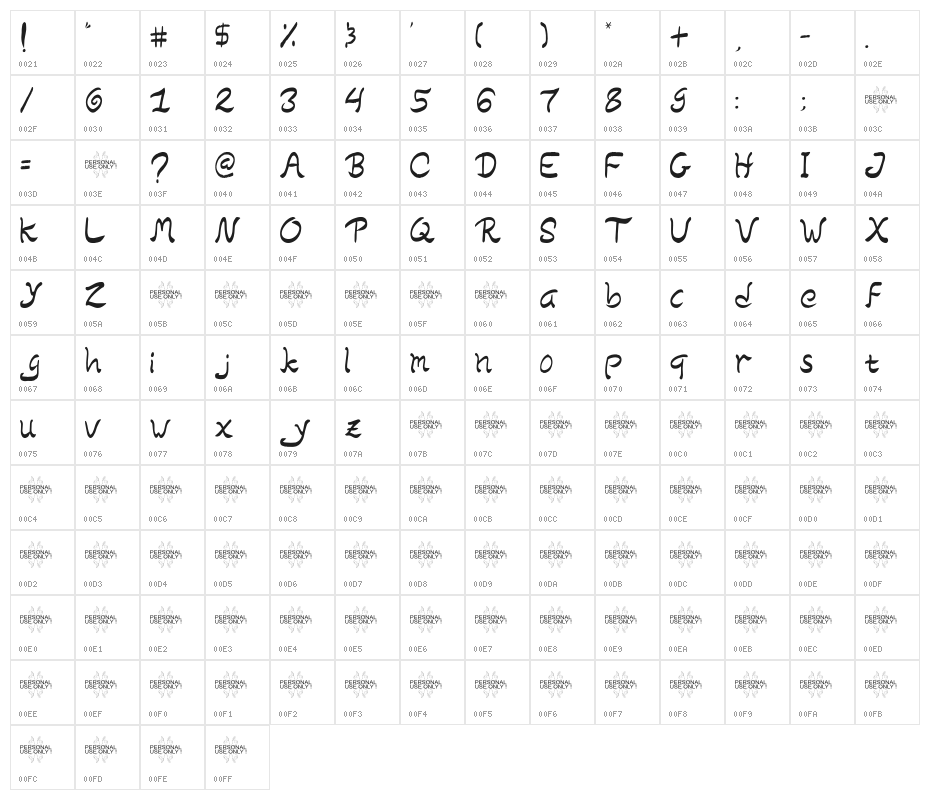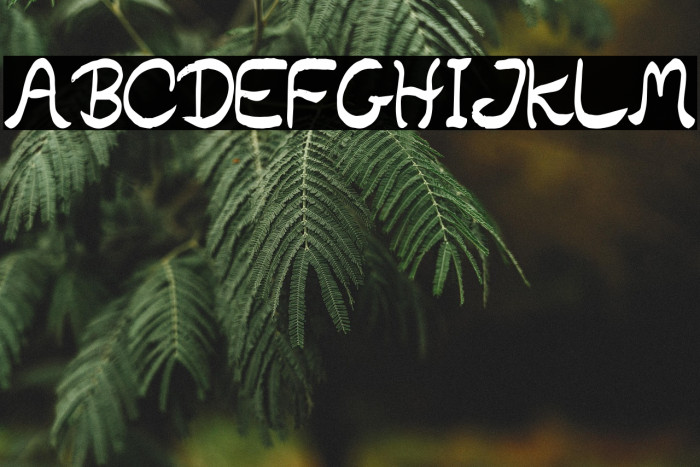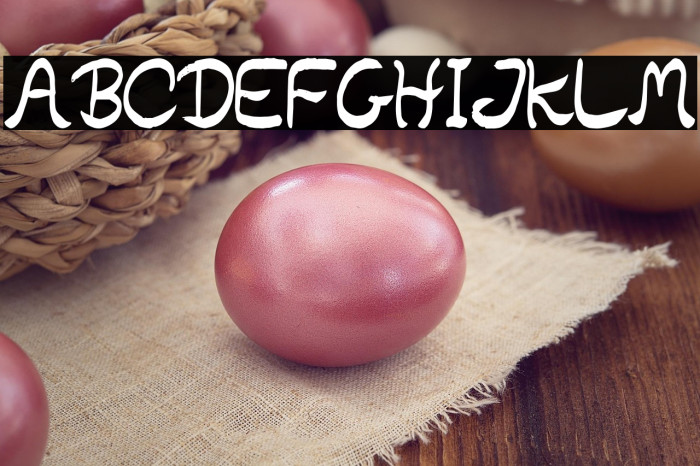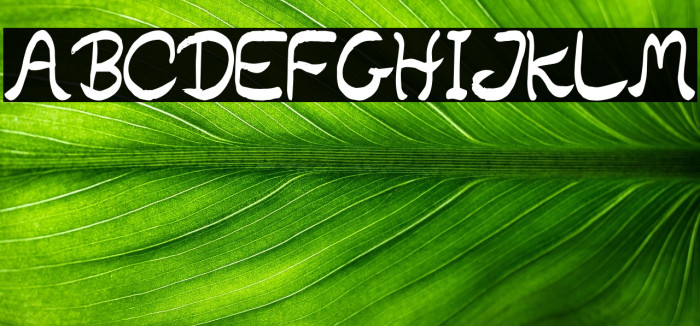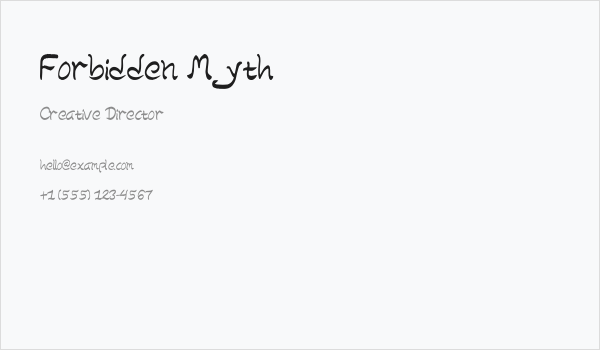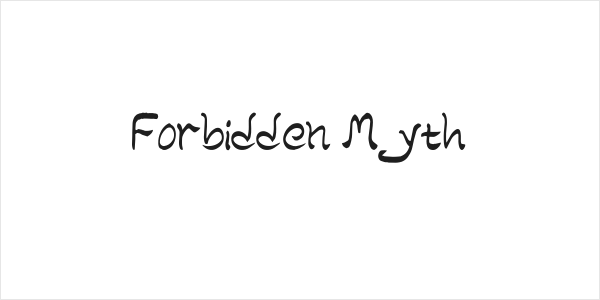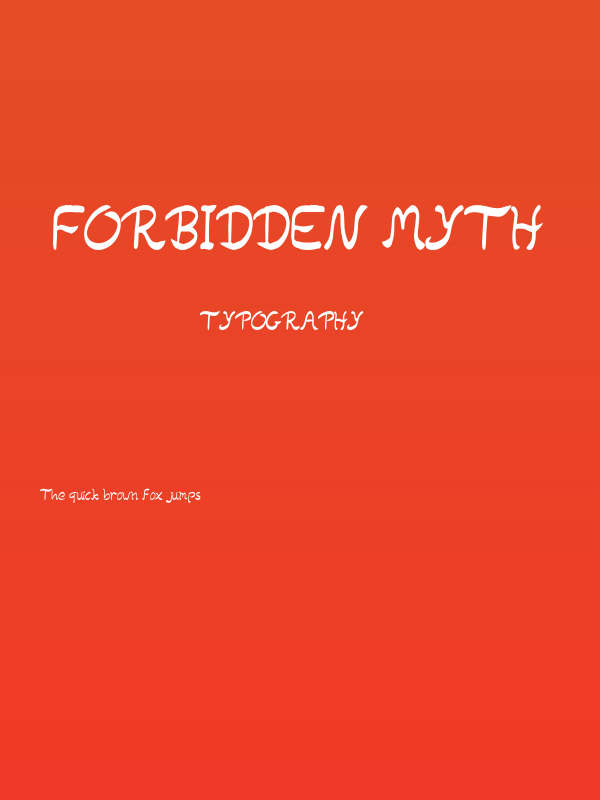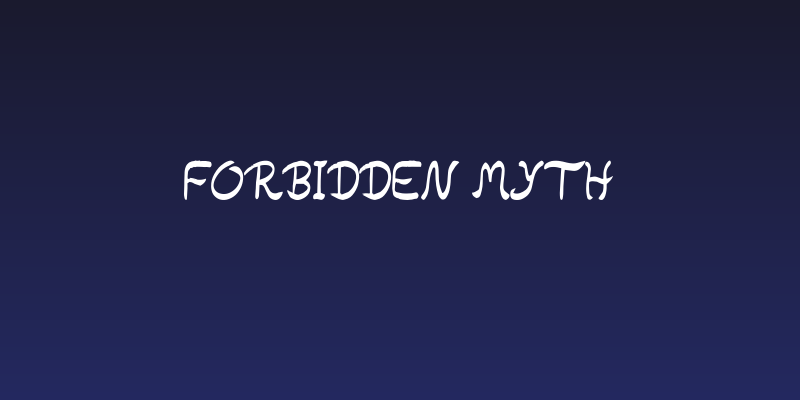
Forbidden Myth Font
Forbidden Myth Description
This font features a playful and dynamic script style with a hand-drawn appearance. The letters are slightly slanted, giving a sense of movement and fluidity. Each character is crafted with a brush-like texture, adding a casual and artistic feel. The uppercase letters are bold and prominent, while the lowercase letters maintain a consistent flow, enhancing readability. Numbers and special characters are designed with the same brush-like strokes, ensuring a cohesive look across all elements. The overall design is expressive and suitable for creative projects.